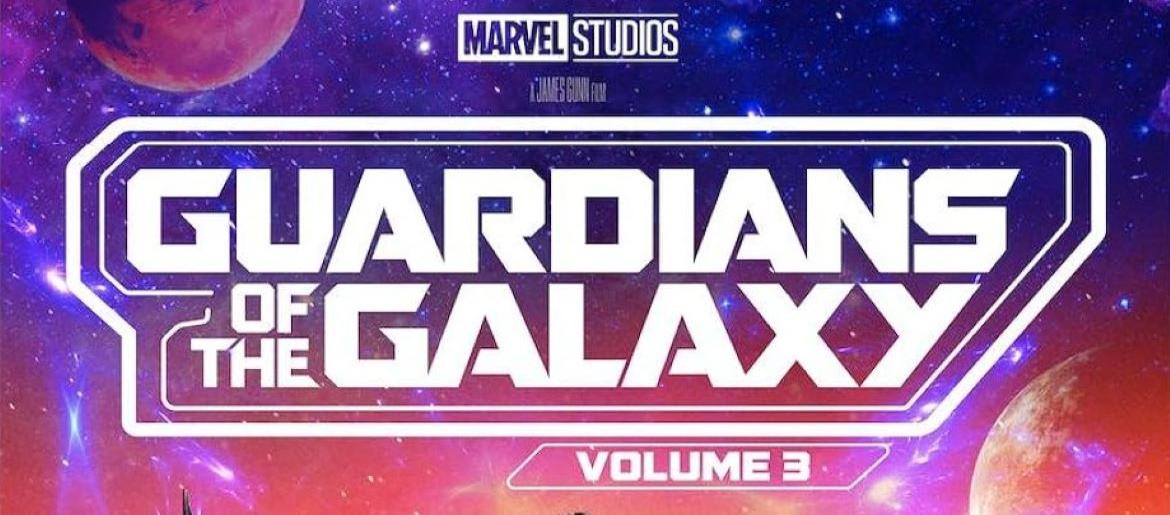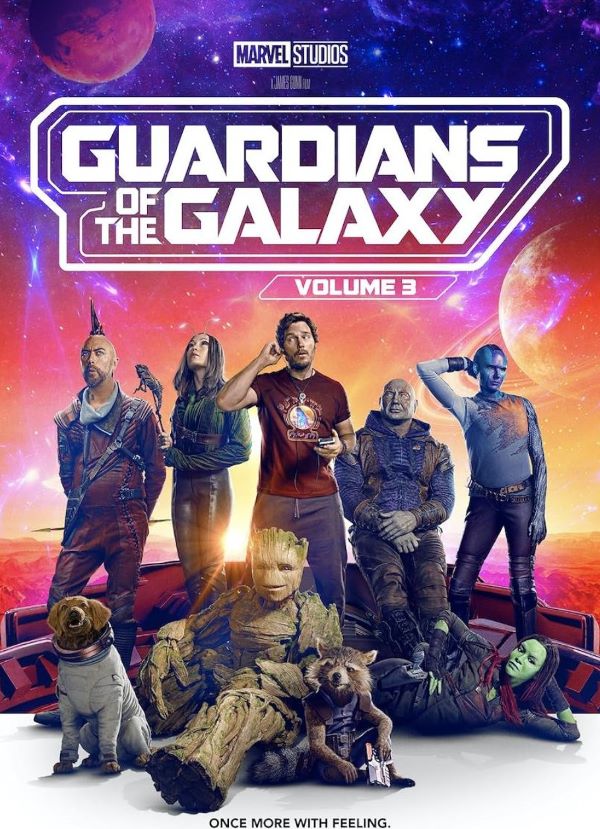
Guardians of the Galaxy Font
What Font is Guardians of the Galaxy?
The Guardians of the Galaxy Font captures the bold, futuristic, and adventurous essence of Marvel’s beloved space saga. While the original movie logo uses a custom-designed typeface, there are two excellent free replica fonts available for personal use — Starlord and Guardians. Both fonts reflect the sharp lines, metallic feel, and intergalactic style that define the movie’s branding, making them perfect for fan projects, posters, or sci-fi designs.
About Guardians of the Galaxy
Guardians of the Galaxy (2014) is a Marvel Cinematic Universe film directed by James Gunn. It follows Peter Quill (Star-Lord) and his misfit team — Gamora, Drax, Rocket, and Groot — as they band together to save the galaxy from powerful cosmic threats. The film blends humor, heart, and an iconic retro soundtrack, while its typography perfectly complements the movie’s vibrant sci-fi atmosphere.